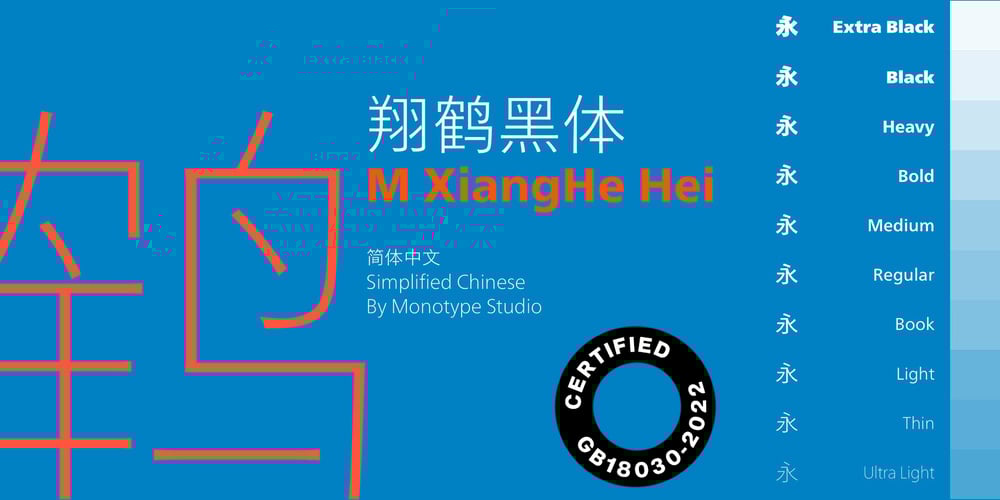
M XiangHe Hei SC Pro Variable Font Family was designed by Adrian Frutiger, Akira Kobayashi, Monotype Design Studio and published by Monotype. M XiangHe Hei SC Pro Variable contains 1 styles and family package options. The M XiangHe Hei Simplified Chinese typeface merges traditional brush strokes with modern letterforms to carefully balance traditional calligraphy with humanist design. Named for the smooth movements of a flying crane, the M XiangHe Hei typeface is designed to glide across the page, and features strokes that are partly derived from the Kaishu calligraphic style – an everyday script which dates back hundreds of years. Seol Sans features Neue Frutiger for its Latin glyphs, and works harmoniously with Neue Frutiger World and Monotype’s CJK typefaces Tazugane Info (Japanese) and Seol Sans (Korean). M XiangHe Hei is a great choice for global brands using sans serif Latin typefaces looking to maintain their visual identity, and communicate with a consistent tone of voice with Simplified Chinese.